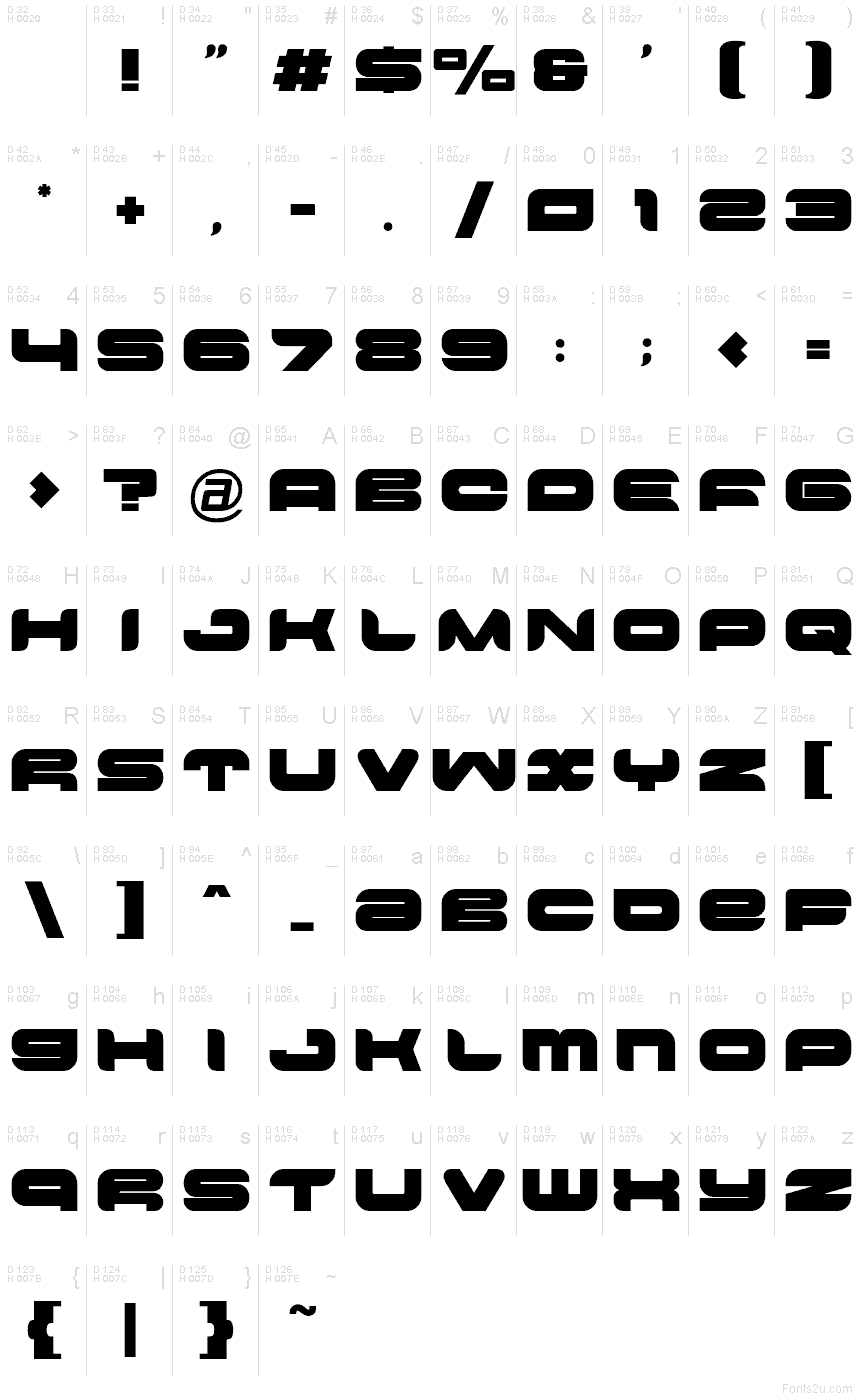
Super Ultra Supra Three
Super Ultra Supra Three font, designed by PutraCetol Studio, is a bold expanded display font with a techno style. Its individually styled characters, geometric and straight-edged in shape, contribute to its modern look. A primary use of its heavy weight which is balanced out by large counter sizes gives the font more visibility than eye strain.
This free techno display font is an ideal choice for branding and logotype designs, signage and magazine titles. Other uses are graphic novels, album covers, book covers, posters, environmental graphics, marketing material designs — particularly those that involve print; packaging labels; as well as video games and web and app UI design elements.